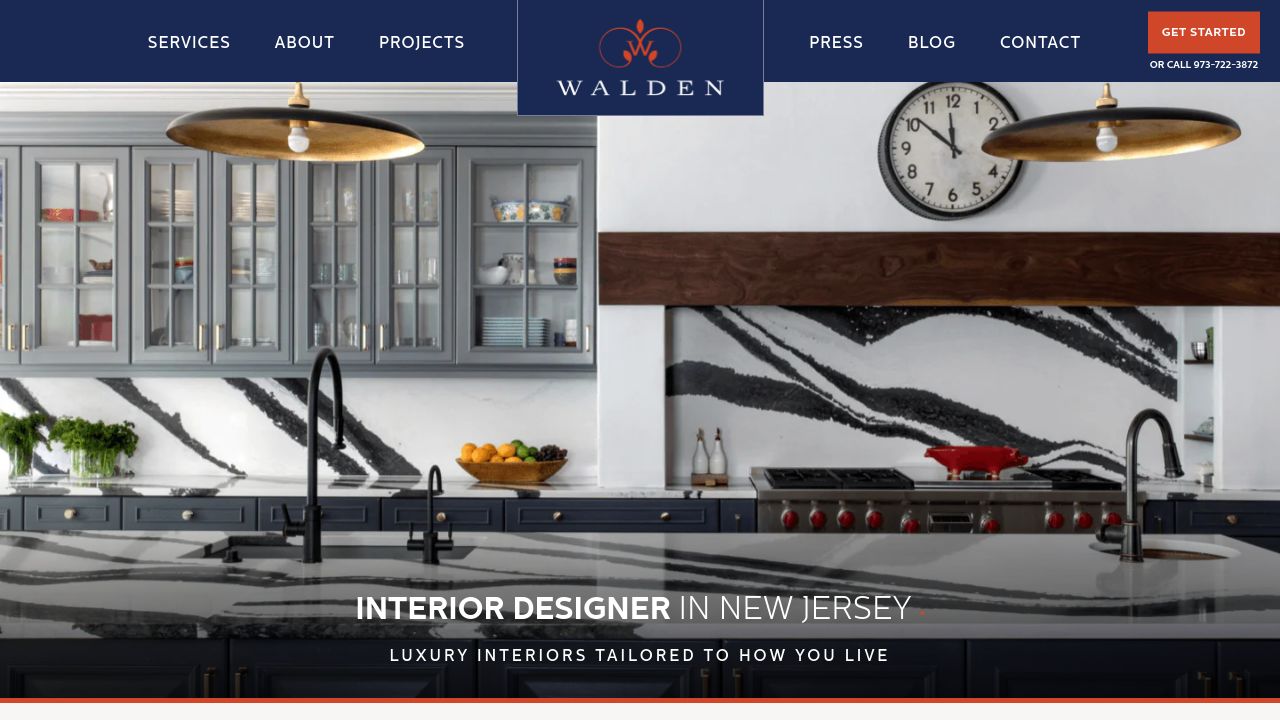
What fonts does Walden-interiors use?
At walden-interiors.com, the typography reflects a commitment to personal style and compassionate living in interior design. The use of Arial and Open Sans enhances readability and approachability, appealing to clients seeking a warm connection. Meanwhile, the inclusion of custom fonts like Cormorant Garamond adds a touch of sophistication, helping to convey the brand's unique aesthetic. These font choices collectively create a welcoming atmosphere for users exploring interior design services.
Frequently asked questions about Walden-interiors.com's fonts
What primary fonts are used on walden-interiors.com?
The primary fonts used on walden-interiors.com include Arial, Open Sans, Cormorant Garamond, and various Font Awesome styles, providing a unique and engaging user experience.
How do the fonts on walden-interiors.com compare to other fonts?
Fonts like Open Sans are versatile for web use, while Cormorant Garamond provides a distinctive elegance. Arial is widely recognized for its simplicity and clarity.
What styles and weights are available for the fonts used?
On walden-interiors.com, Open Sans is available in weights 400 and 700, while Font Awesome includes various weights for icons. Cormorant Garamond is primarily used in weight 400.
Are there fallback fonts used on walden-interiors.com?
Yes, if primary fonts fail to load, Helvetica serves as a fallback font, ensuring text remains readable and visually consistent across devices.